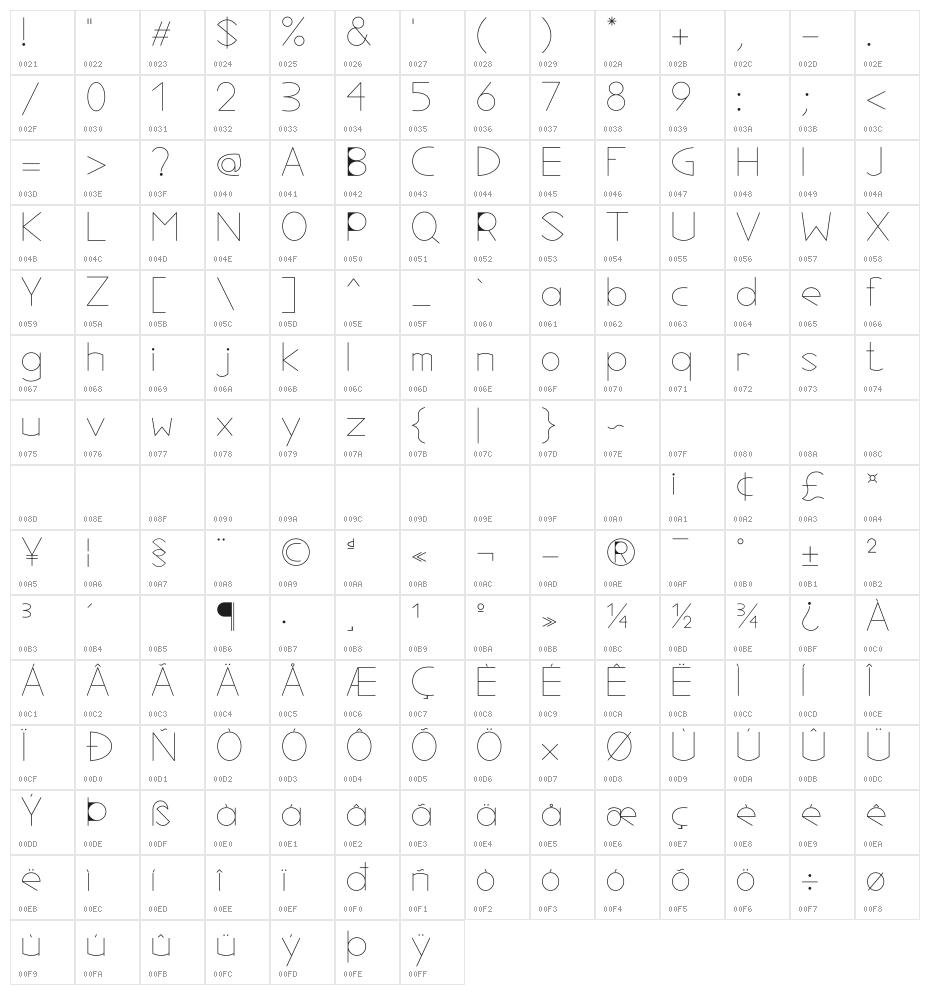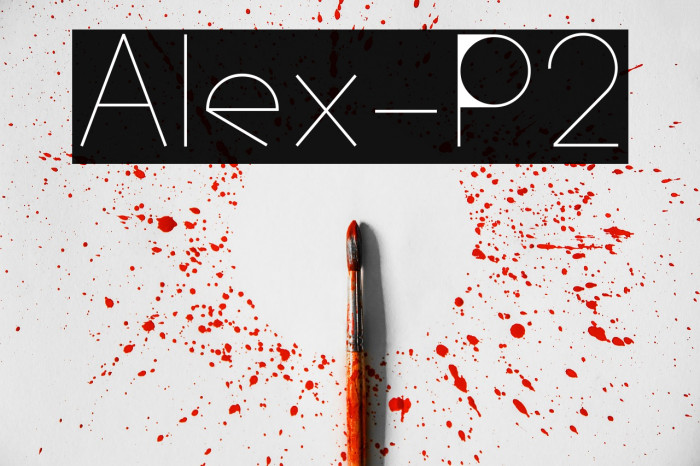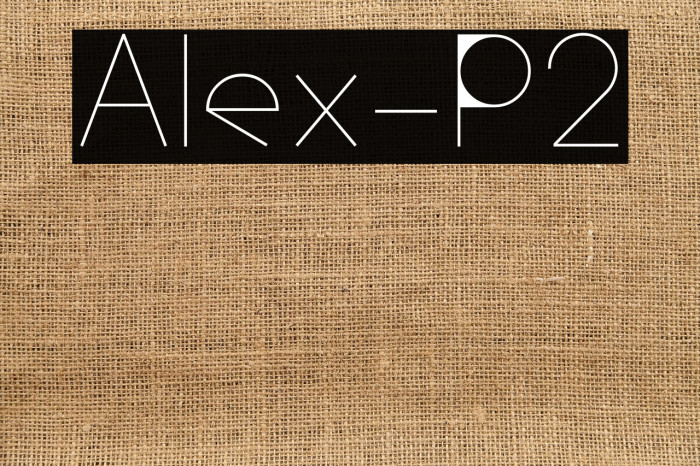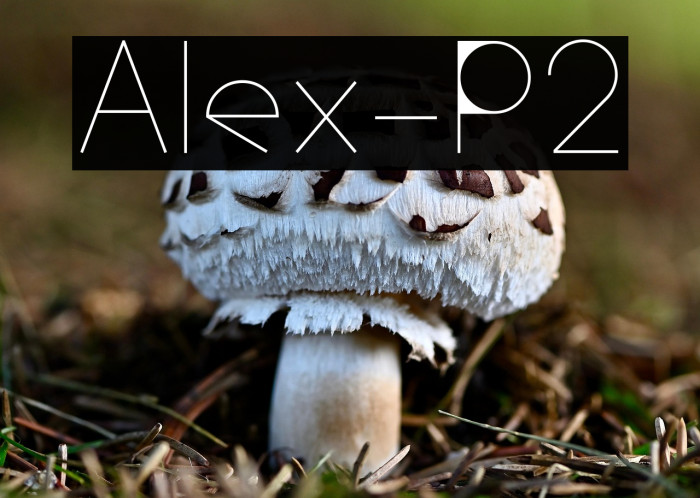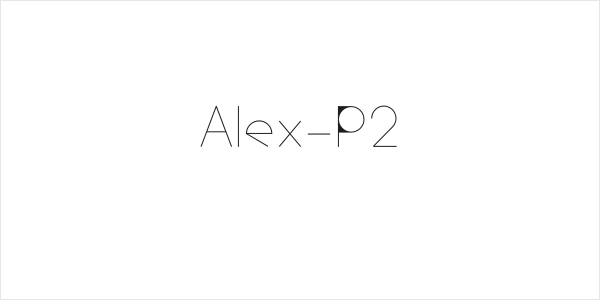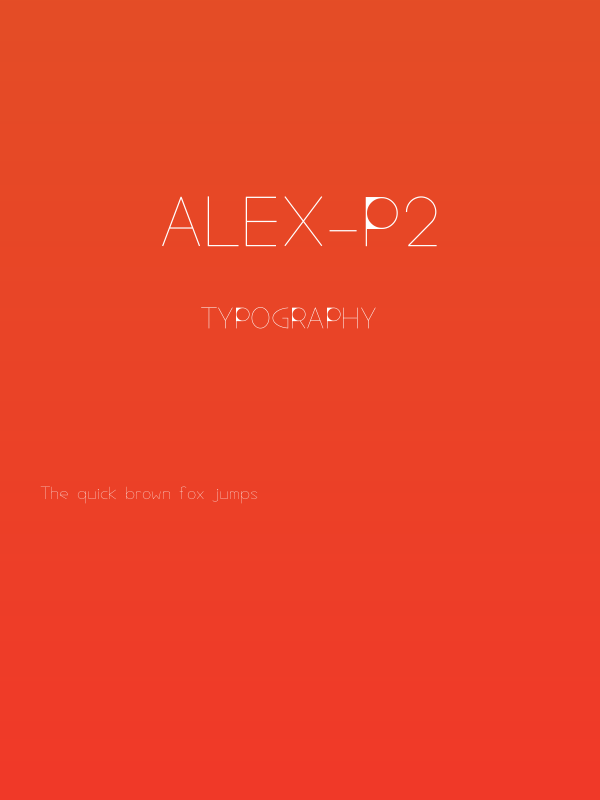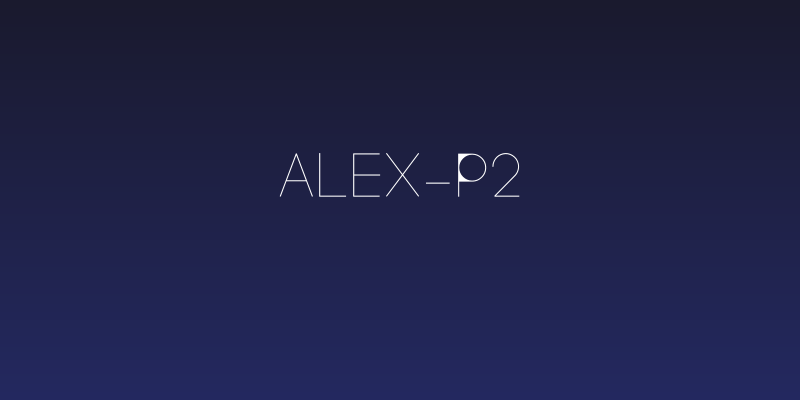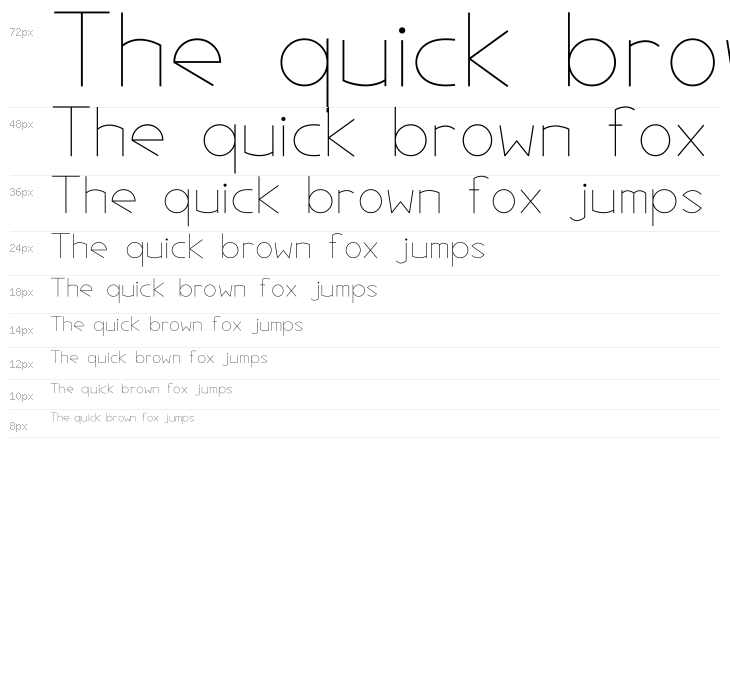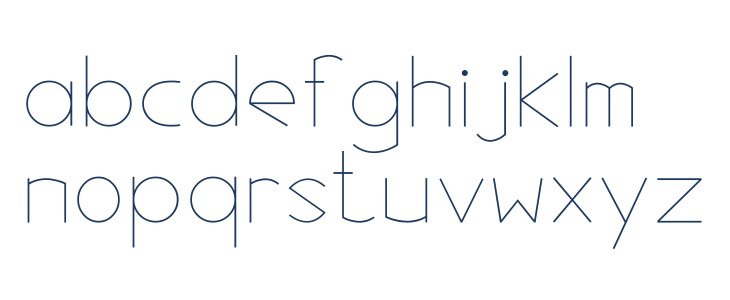
Alex-P2 Font
Alex-P2 Description
This font exhibits a modern and minimalist design with clean, geometric lines. The uppercase letters are characterized by their uniform stroke width and open, airy structure, creating a sense of elegance and simplicity. The lowercase letters maintain this geometric style, with rounded forms that enhance readability. The numerals are consistent with the overall design, featuring a sleek and contemporary appearance. Special characters are designed with the same attention to detail, ensuring a cohesive look across all glyphs. This font's thin strokes and open counters make it ideal for projects that require a modern and sophisticated touch.